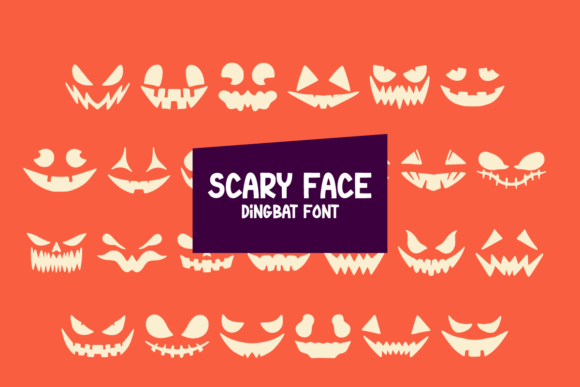
Unleash the Spooky Charm with Scary Face Font: The Ultimate Dingbat Font for Your Creative Endeavors
Journey into the realm of the supernatural with Scary Face Font, a captivating dingbat font that exudes a haunting aura perfect for Halloween enthusiasts. Inspired by the eerie essence of the Halloween season, this font features a captivating collection of spooky faces that will add an enchanting touch to your creative projects.
Immerse yourself in the world of ghastly grins, wicked eyes, mischievous smiles, and spine-chilling expressions that Scary Face Font brings to life. Each glyph is meticulously crafted to evoke a sense of mystery, horror, and playfulness. Whether you're designing SVG files, crafting unique projects, creating eye-catching graphic tees, or seeking a distinctive logo for your brand, Scary Face Font is your perfect companion.
With its versatility, Scary Face Font effortlessly adapts to a myriad of creative endeavors, allowing you to unleash your imagination and conjure captivating designs. Unleash the spooky magic of Scary Face Font and transform your projects into spine-tingling masterpieces.